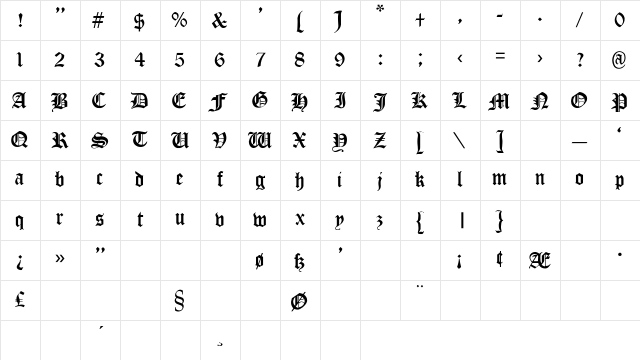
Minister_Black-Light Regular Free Font
Minister_Black-Light Regular
Design Context for Minister_Black-Light
Minister_Black-Light is a composed and adaptable typeface that performs quietly and consistently across a wide range of design contexts. Its slender proportions lend an understated elegance to any composition.
Pro Tip: Use Minister_Black-Light in both headline and body roles to test its range before committing to a single application.